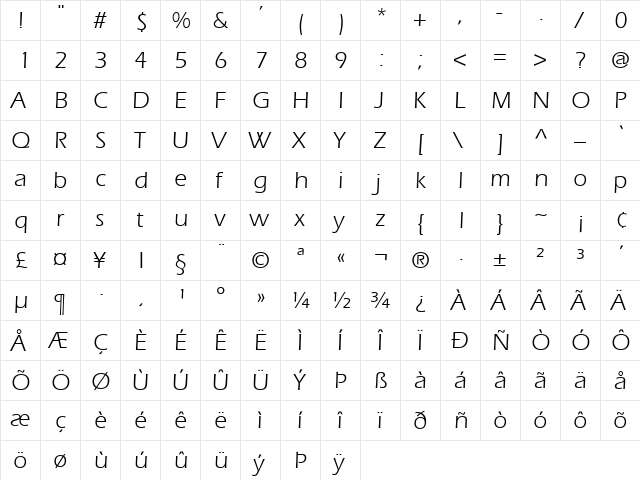
Eerie Regular
Design Context for Eerie Typeface
Eerie offers clean, dependable letterforms without strong stylistic allegiance, making it a practical choice for designers who need flexibility.